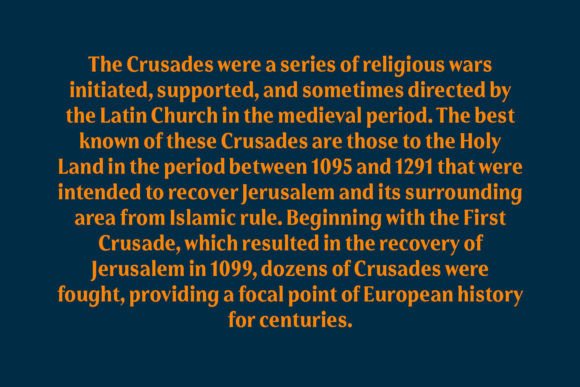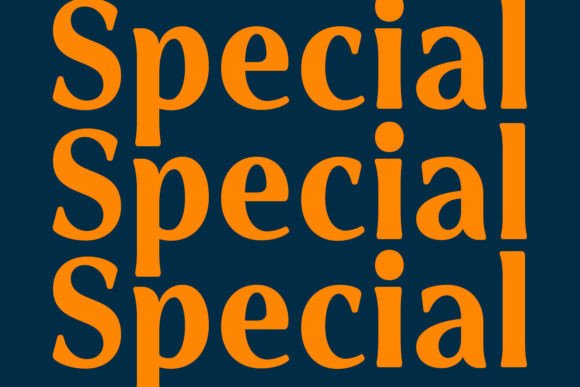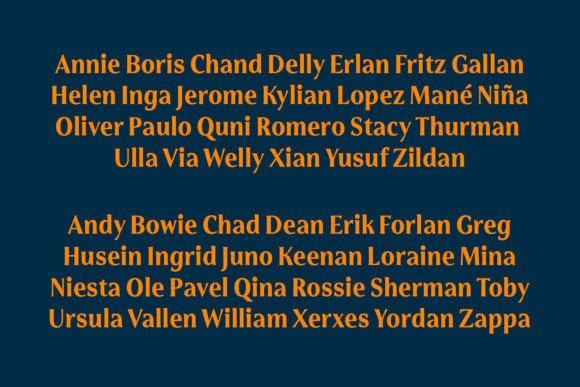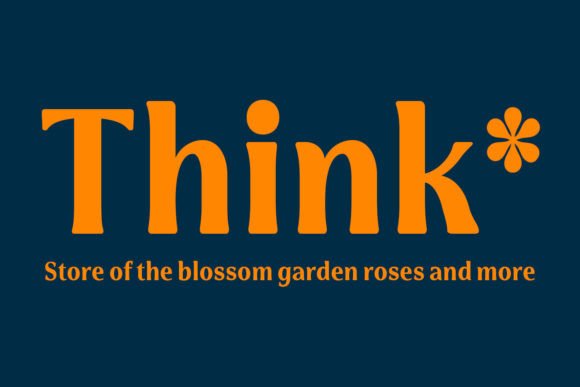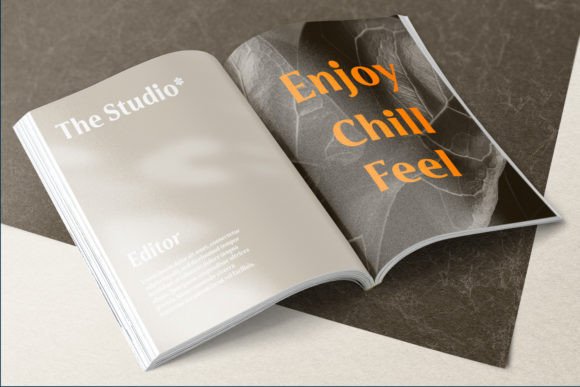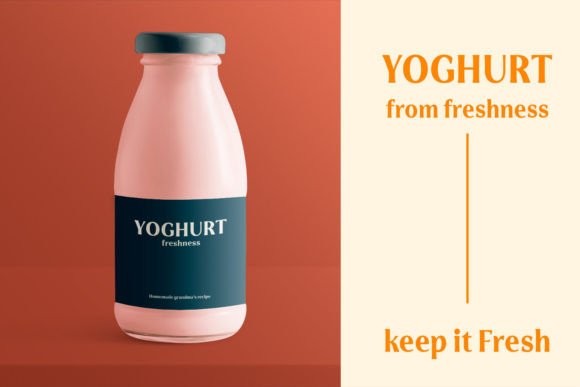
Introducing Belotra Font: A Semi-Serif Display Font with a Nostalgic Twist
In the world of typography, fonts play a crucial role in conveying the tone and personality of a design. For designers and crafters, finding the right font can make all the difference in creating a visually appealing and effective design. If you’re looking for a font that exudes strength, confidence, and dynamism, look no further than Belotra Font. This semi-serif display font is a game-changer, and in this article, we’ll explore its features, benefits, and uses.
What is Belotra Font?
Belotra Font is a semi-serif display font that boasts a unique and captivating aesthetic. Its semi-serif design gives it a distinctive edge, setting it apart from traditional serif and sans-serif fonts. With its strong, confident, and dynamic appearance, Belotra Font is perfect for designers who want to add a touch of nostalgia to their designs.
Key Features of Belotra Font
- Semi-Serif Design: Belotra Font’s semi-serif design makes it a versatile font that can be used in a variety of design contexts, from headings and titles to logos and branding.
- Strong and Confident: The font’s bold and confident appearance makes it perfect for designs that require a sense of authority and power.
- Dynamic and Expressive: Belotra Font’s unique design elements give it a dynamic and expressive quality, making it ideal for designs that require a touch of personality.
- Nostalgic Character: The font’s semi-serif design and classic aesthetic give it a nostalgic feel that’s perfect for designs that require a retro or vintage touch.
Benefits of Using Belotra Font
So, why should you choose Belotra Font for your designs? Here are just a few benefits of using this amazing font:
- Stand Out from the Crowd: Belotra Font’s unique design makes it a great choice for designers who want to create designs that stand out from the crowd.
- Versatility: The font’s semi-serif design and bold appearance make it versatile enough to be used in a variety of design contexts.
- Easy to Read: Despite its bold appearance, Belotra Font is easy to read, making it perfect for designs that require a clear and concise message.
- Customizable: Belotra Font can be customized to fit your design needs, making it a great choice for designers who want to create unique and personalized designs.
Uses of Belotra Font
Belotra Font is a versatile font that can be used in a variety of design contexts. Here are just a few examples of how you can use this amazing font:
- Headings and Titles: Belotra Font’s bold and confident appearance makes it perfect for headings and titles.
- Logos and Branding: The font’s unique design elements and semi-serif design make it a great choice for logos and branding.
- Posters and Flyers: Belotra Font’s dynamic and expressive quality makes it perfect for posters and flyers.
- Web Design: The font’s clean and legible design makes it a great choice for web design.
In conclusion, Belotra Font is a semi-serif display font that offers a unique and captivating aesthetic. With its strong, confident, and dynamic appearance, this font is perfect for designers who want to add a touch of nostalgia to their designs. Whether you’re creating headings and titles, logos and branding, or posters and flyers, Belotra Font is a versatile and effective choice. So why not give it a try and see how it can elevate your designs?